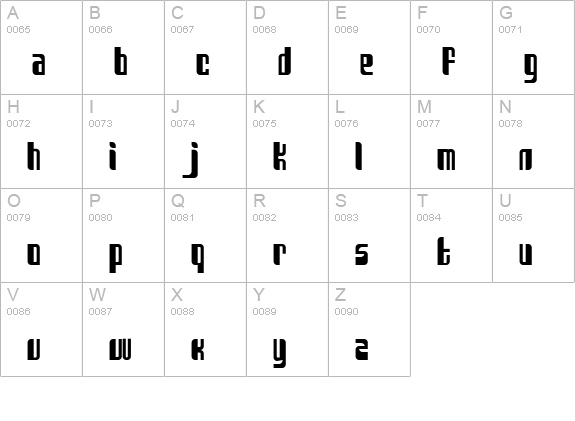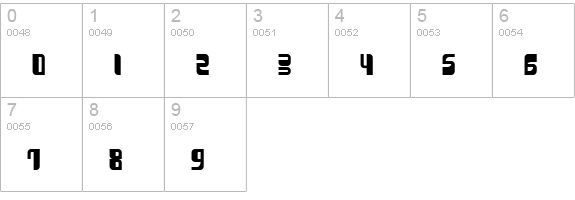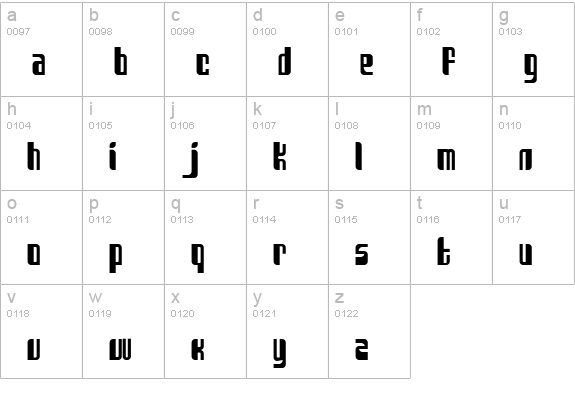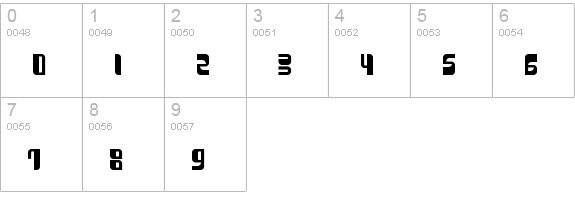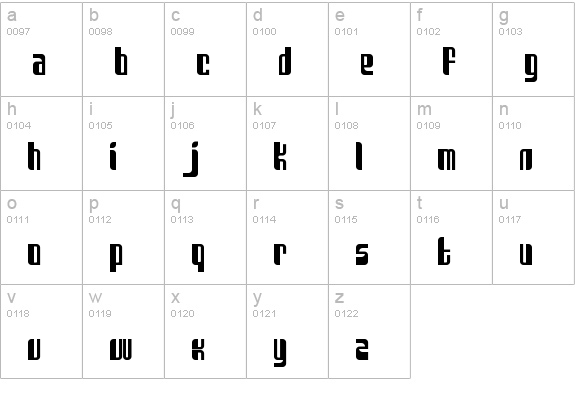
Sanka Font Details
Sanka font is a beautifully crafted typeface that exudes elegance and sophistication. With its clean lines and graceful curves, it is perfect for a wide range of design projects, from branding and logos to invitations and headlines. What sets Sanka font apart is not just its stunning aesthetics, but also the fact that it is available to download for free at FontsMarket.com. This means that designers and creatives can enjoy the beauty and versatility of Sanka font without any cost, making it an ideal choice for both personal and commercial projects. Whether you're a seasoned designer or just starting out, Sanka font offers endless possibilities. Its versatility allows it to be used in a variety of contexts, from fashion and beauty industries to food and beverage branding. The attention to detail in each character ensures legibility and readability, while still maintaining a sense of uniqueness and style. Furthermore, Sanka font's freely available download at FontsMarket.com makes it easily accessible to everyone. No longer do you have to worry about expensive licenses or limited access – Sanka font is here to inspire and empower your creativity without any financial constraints. In conclusion, Sanka font is a stunning typeface that combines elegance and versatility. Its freely available download at FontsMarket.com makes it a valuable asset for designers and creatives alike, offering endless possibilities for all your design needs. Experience the beauty of Sanka font today and let your creativity soar.